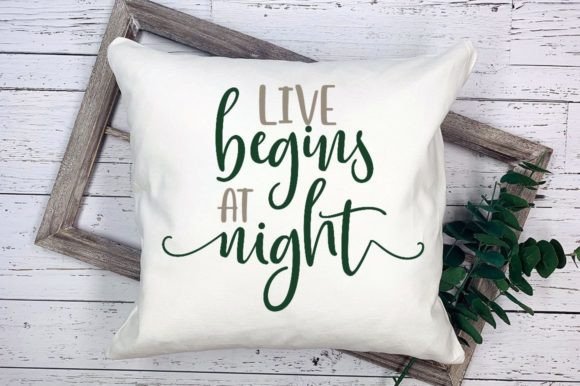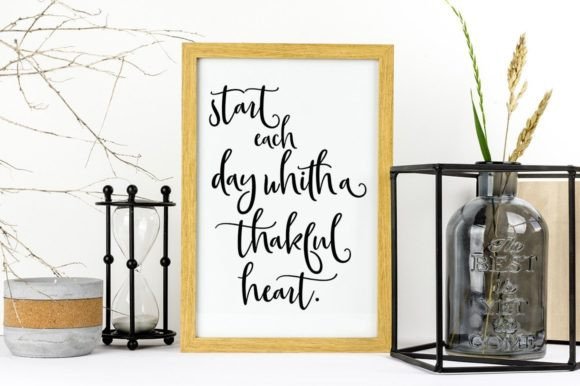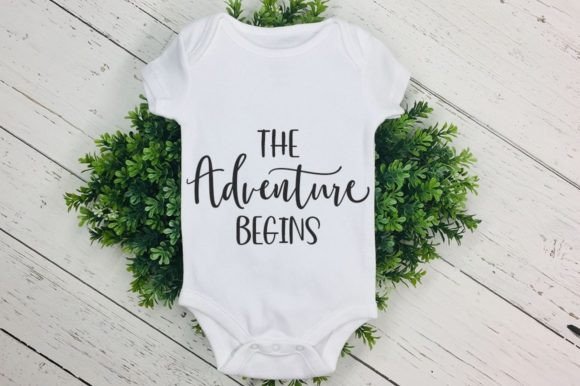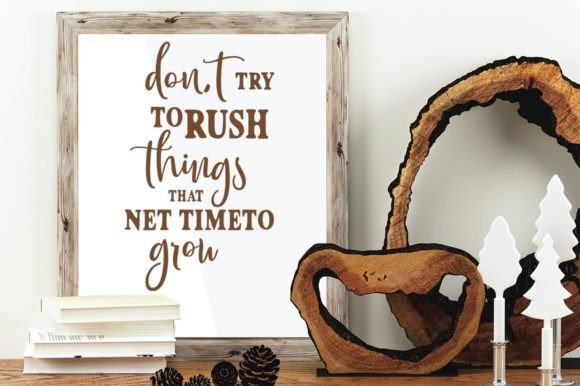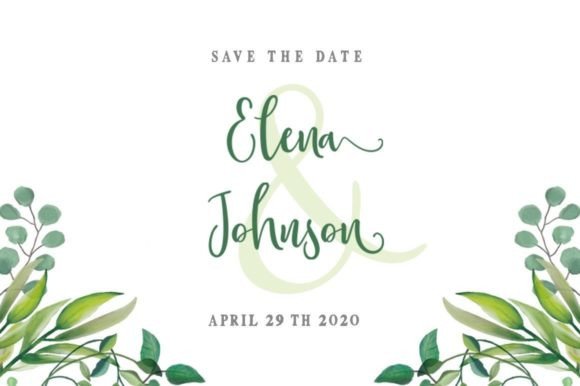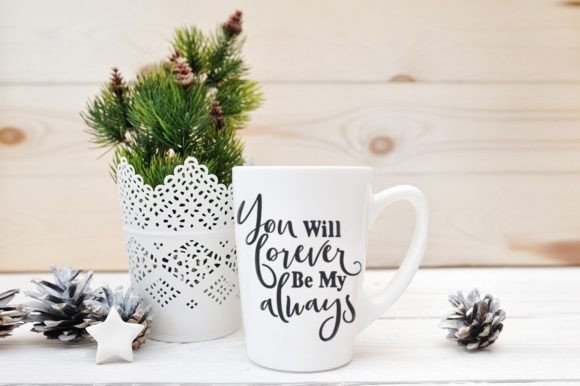
Gorgeous Font Trio: Elevate Your Designs with this Modern Script Font
Are you on the hunt for a font that exudes elegance, sophistication, and a touch of whimsy? Look no further than the Gorgeous Font Trio, a stunning modern script font that’s perfect for designers and crafters alike. With its irregular baseline and trendy, feminine vibe, this font is sure to elevate your designs and make them stand out from the crowd.
What Makes Gorgeous Font Trio So Special?
So, what sets Gorgeous Font Trio apart from other fonts on the market? For starters, its unique irregular baseline gives it a playful, hand-written feel that’s perfect for creating wedding invitations, thank you cards, quotes, and other designs that require a personal touch. Additionally, the font’s modern script style is both trendy and timeless, making it a versatile choice for a wide range of design projects.
Gorgeous Font Trio is incredibly versatile, making it perfect for a wide range of design projects, including:
- Quotes and social media graphics
One of the best things about Gorgeous Font Trio is that it’s PUA (Private Use Area) encoded, which means you can access all of the glyphs and swashes with ease. This makes it simple to customize your designs and add your own personal touch. Whether you’re a seasoned designer or a crafting novice, PUA encoding makes it easy to get the most out of this beautiful font.
Why Designers and Crafters Love Gorgeous Font Trio
So, why do designers and crafters love Gorgeous Font Trio? Here are just a few reasons:
- Elegant and sophisticated: Gorgeous Font Trio has a sleek, modern style that’s perfect for creating elegant and sophisticated designs.
- Feminine and playful: The font’s irregular baseline and playful swashes give it a feminine and playful vibe that’s perfect for creating designs that are fun and whimsical.
- Versatile: Gorgeous Font Trio is perfect for a wide range of design projects, from wedding invitations to social media graphics.
- Easy to use: PUA encoding makes it simple to access all of the font’s glyphs and swashes, making it easy to customize your designs.
Tips for Getting the Most Out of Gorgeous Font Trio
Here are a few tips for getting the most out of Gorgeous Font Trio:
- Experiment with different colors: The font’s elegant and sophisticated style looks great in a variety of colors, from classic black and white to bold and bright hues.
- Play with swashes: The font’s swashes are a great way to add a personal touch to your designs. Experiment with different swashes and combinations to find the one that works best for your project.
- Pair with other fonts: Gorgeous Font Trio pairs well with a variety of other fonts, from modern sans serifs to elegant serifs. Experiment with different pairings to find the one that works best for your project.
In conclusion, Gorgeous Font Trio is a stunning modern script font that’s perfect for designers and crafters alike. With its irregular baseline, trendy and feminine vibe, and PUA encoding, this font is sure to elevate your designs and make them stand out from the crowd. Whether you’re creating wedding invitations, social media graphics, or logos, Gorgeous Font Trio is a versatile and elegant choice that’s sure to impress.